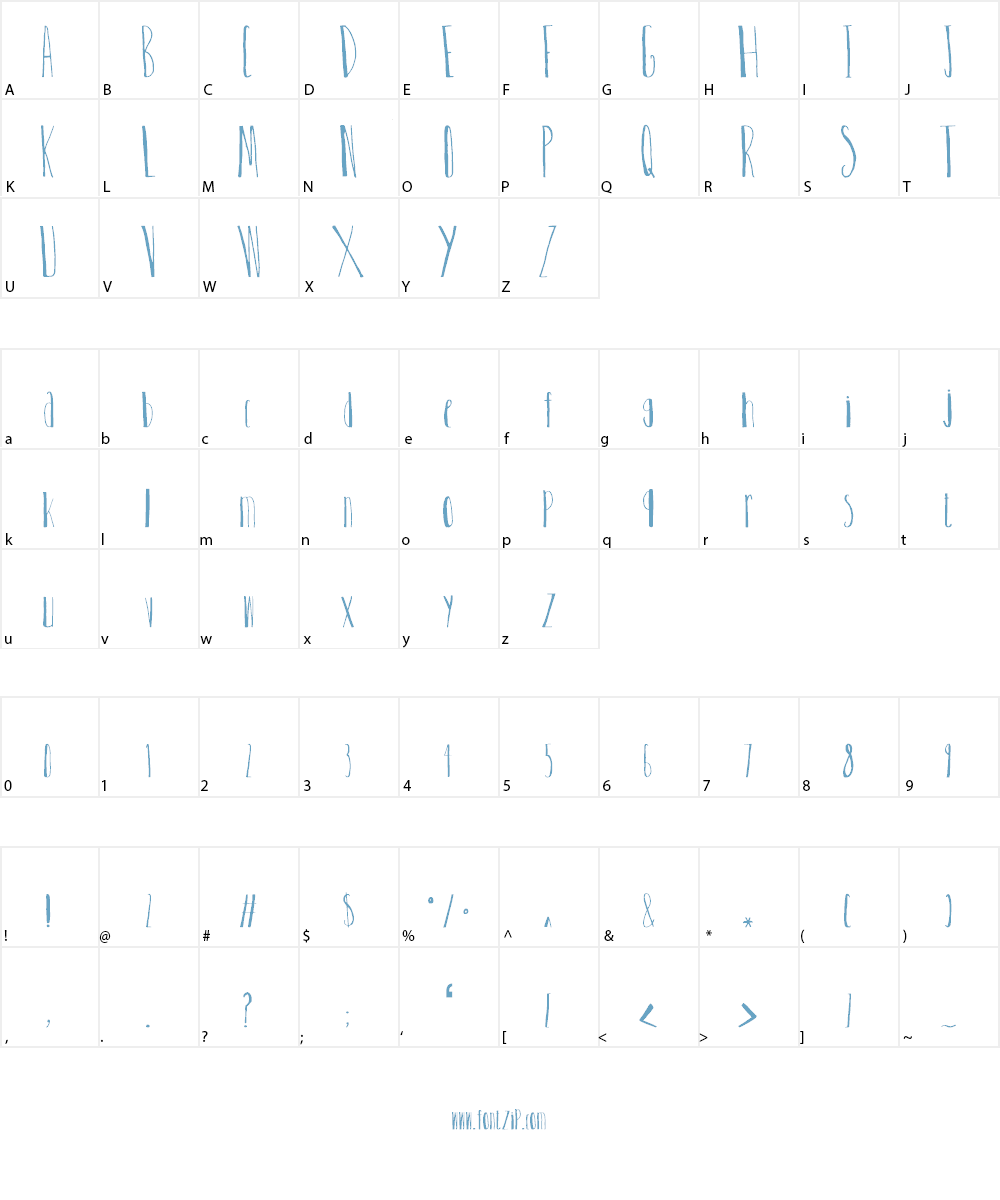
Introducing Ibrat . A handmade calligraphy, rough font with tons of character. Every character in this font was hand crafted with calligraphy pen to give a completely authentic look.